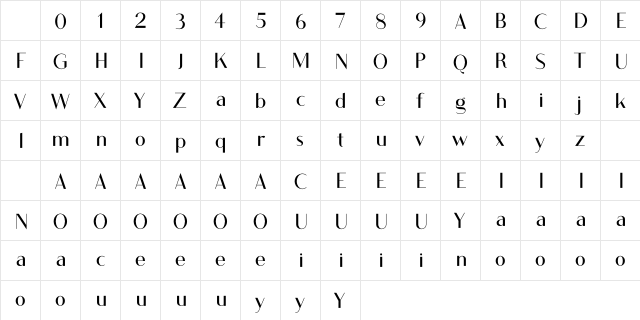
Complete King Sans FREE glyph index. Displaying only characters natively supported by King Sans FREE font.
King Sans is a composed and adaptable typeface that performs quietly and consistently across a wide range of design contexts.
Pro Tip: Use King Sans in both headline and body roles to test its range before committing to a single application.